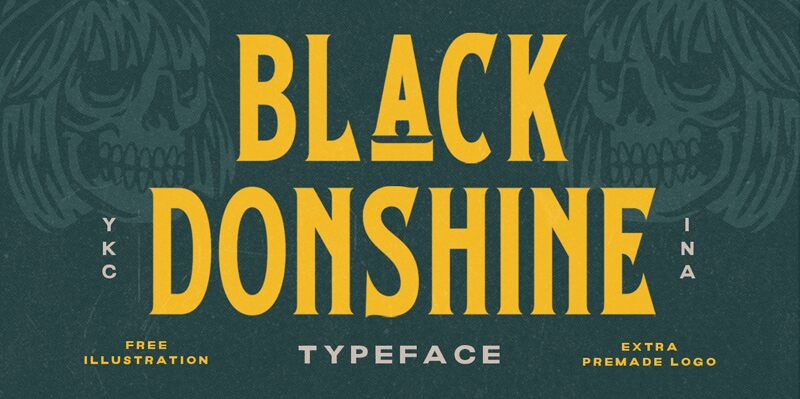
Black Donshine font is a free font designed by Letterhend Studio featuring a retro display type. The letters are bold, the serifs are sharp and dramatic, and the style is vintage overall with narrow spacing. With a noticeable high-contrast and elegant presence, this font will effectively get your message across especially if you’re looking for something that was made to stand out.
Choose between impressive headings, subheadings, posters, packaging designs, publication covers (books/magazine), printed items like business cards and other stationery materials. Whenever you’re stuck working on an important design that needs unmatched attention then this display type is the one to go for!